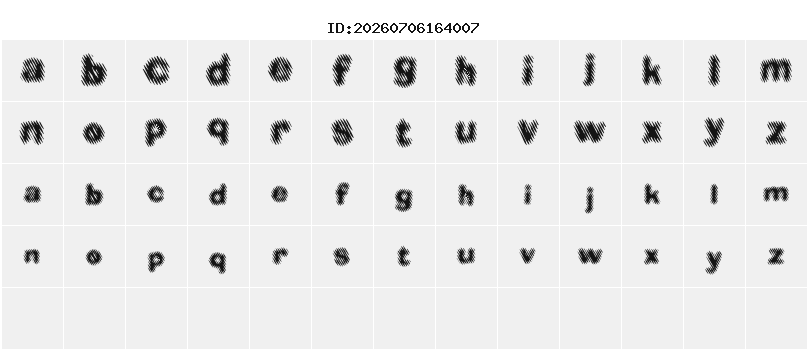
About Diager.ttf
Diager.ttf is a modern, elegant sans-serif font designed for ultimate readability and visual harmony. Perfect for branding, headlines, web design, and print materials.